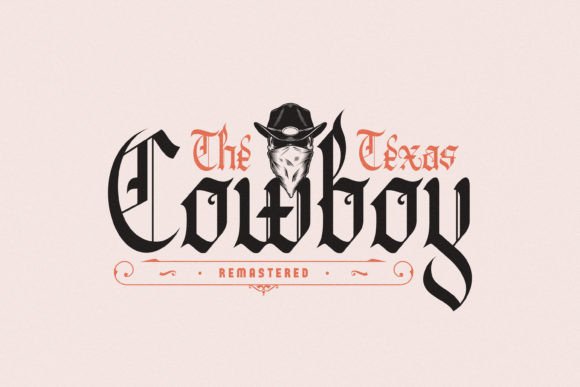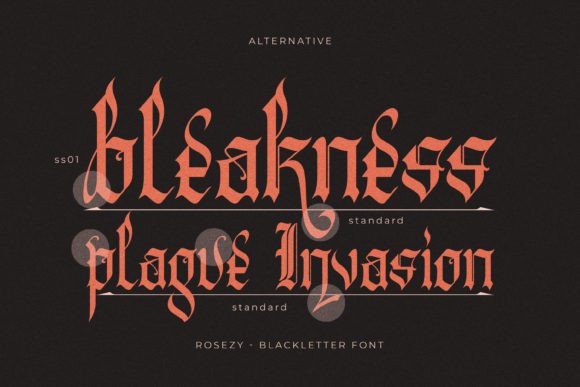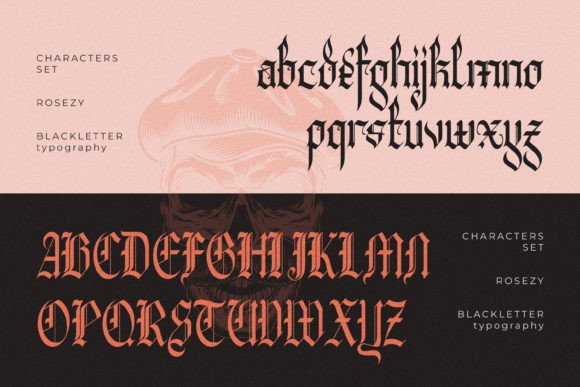
Introduction to Rosezy Font
Rosezy is a striking blackletter font that exudes power and authority with its bold, intricate lines and sharp angles.
Its intricate details and historical roots create a sense of grandeur and sophistication, making it the perfect choice for anything that demands attention and respect, from formal invitations to branding and logos .
Key Features of Rosezy Font
Why Choose Rosezy Font?